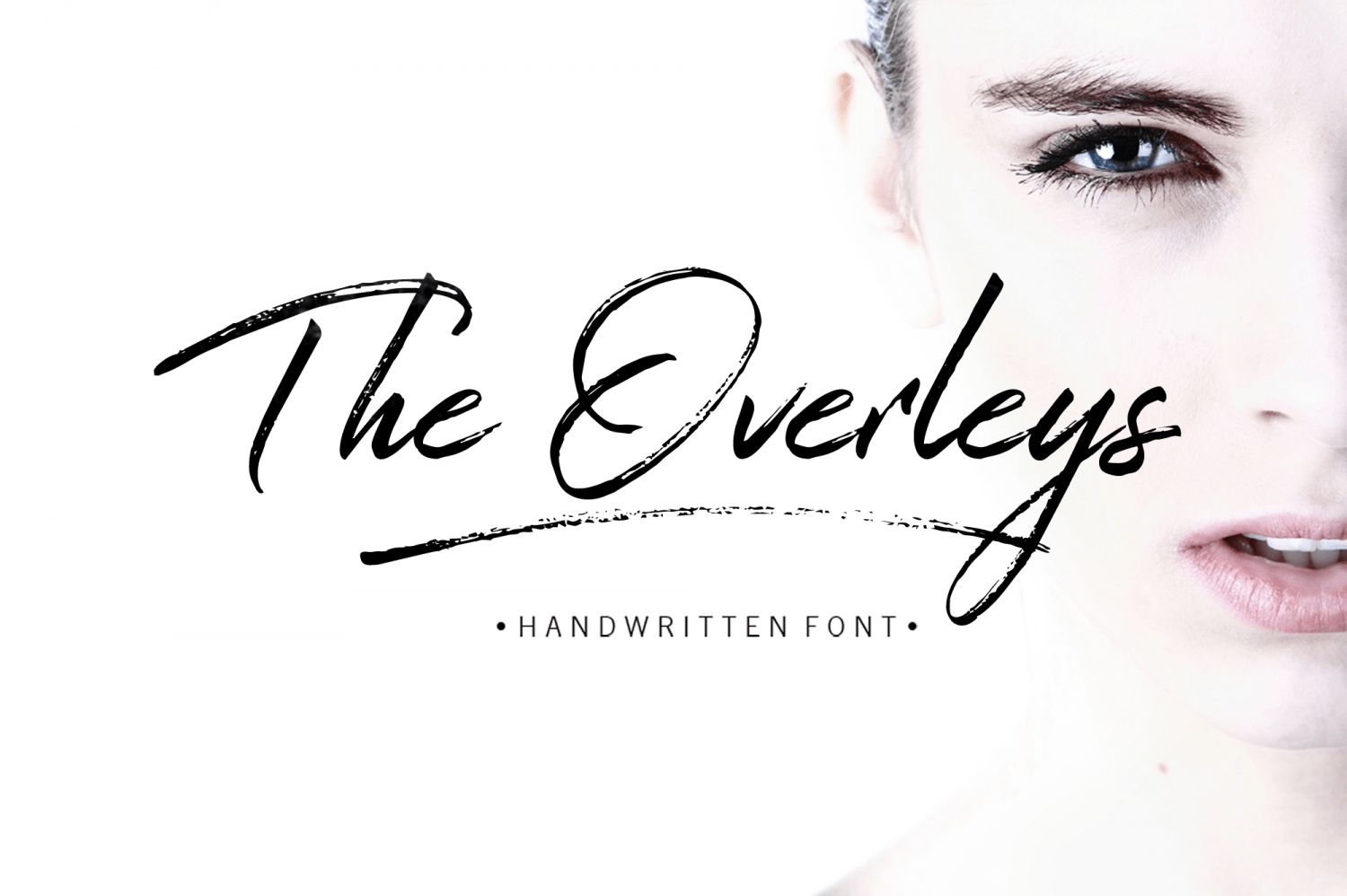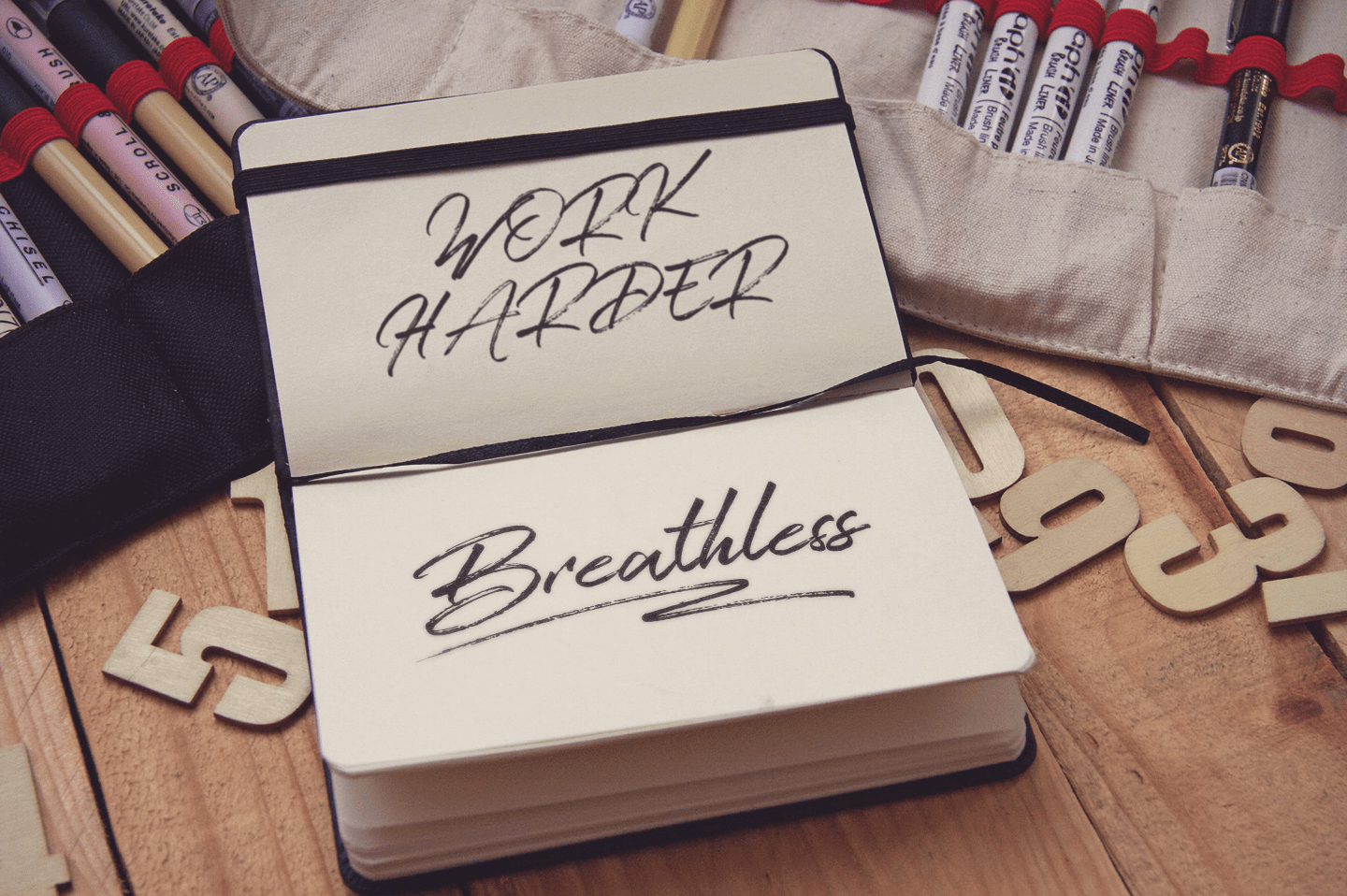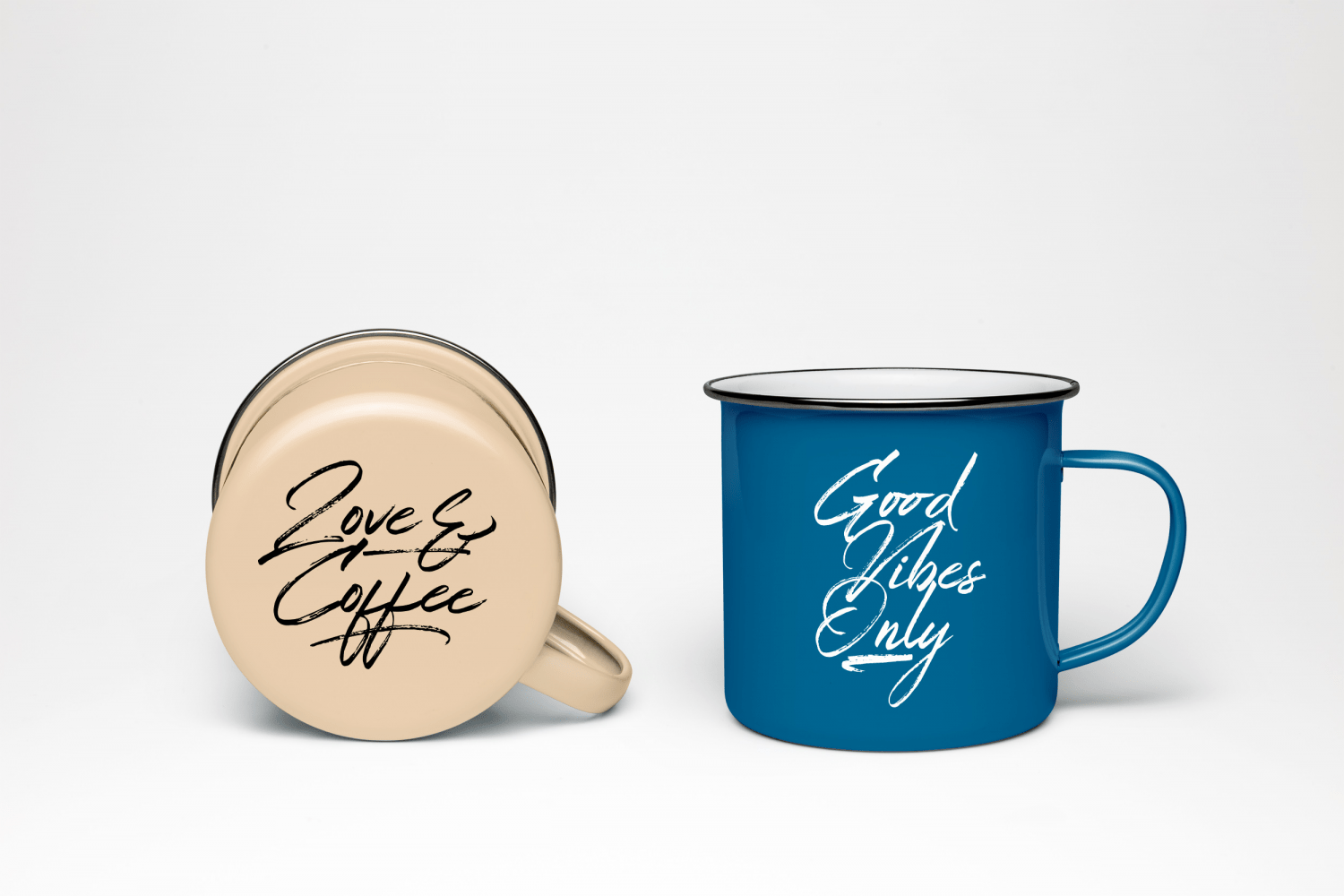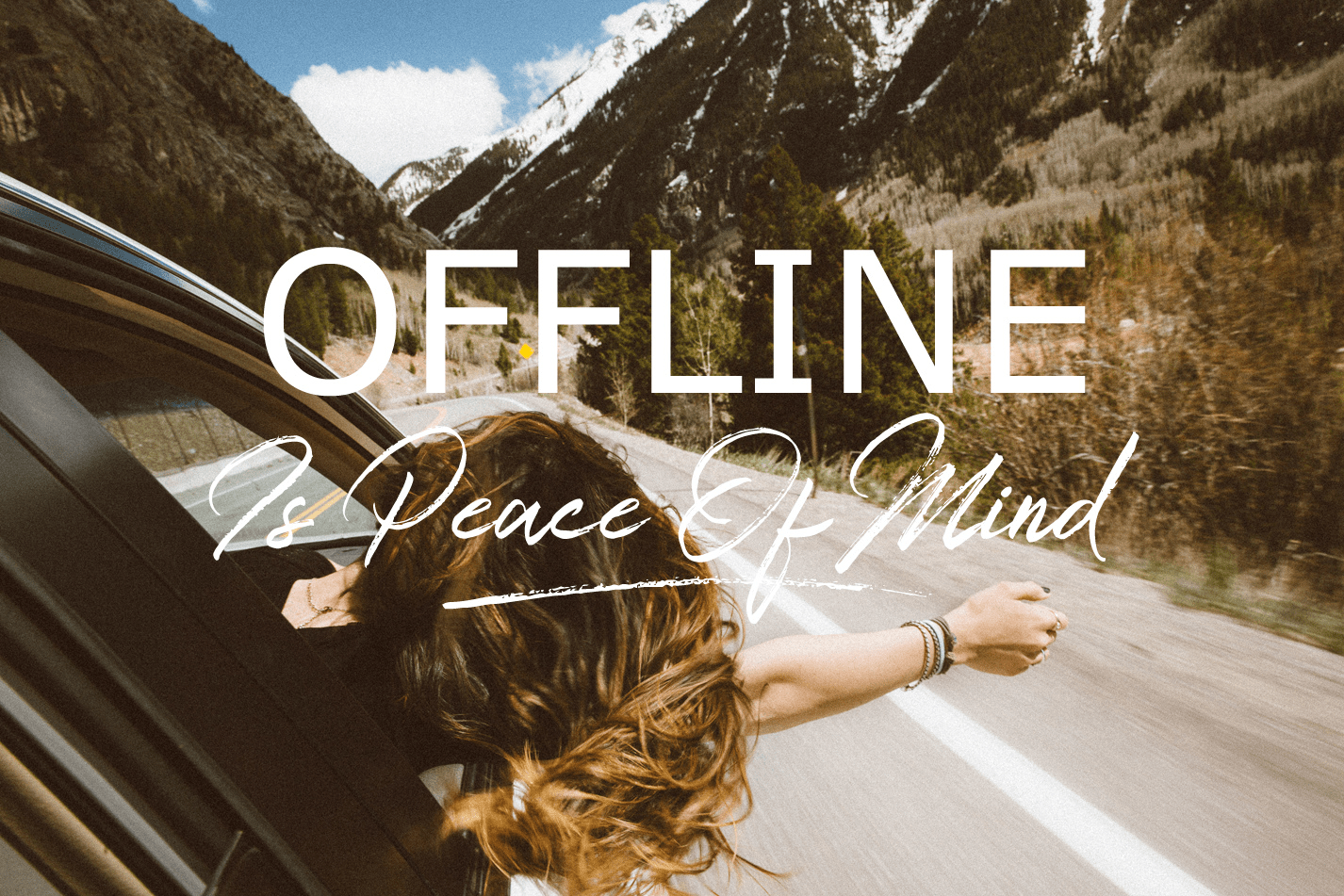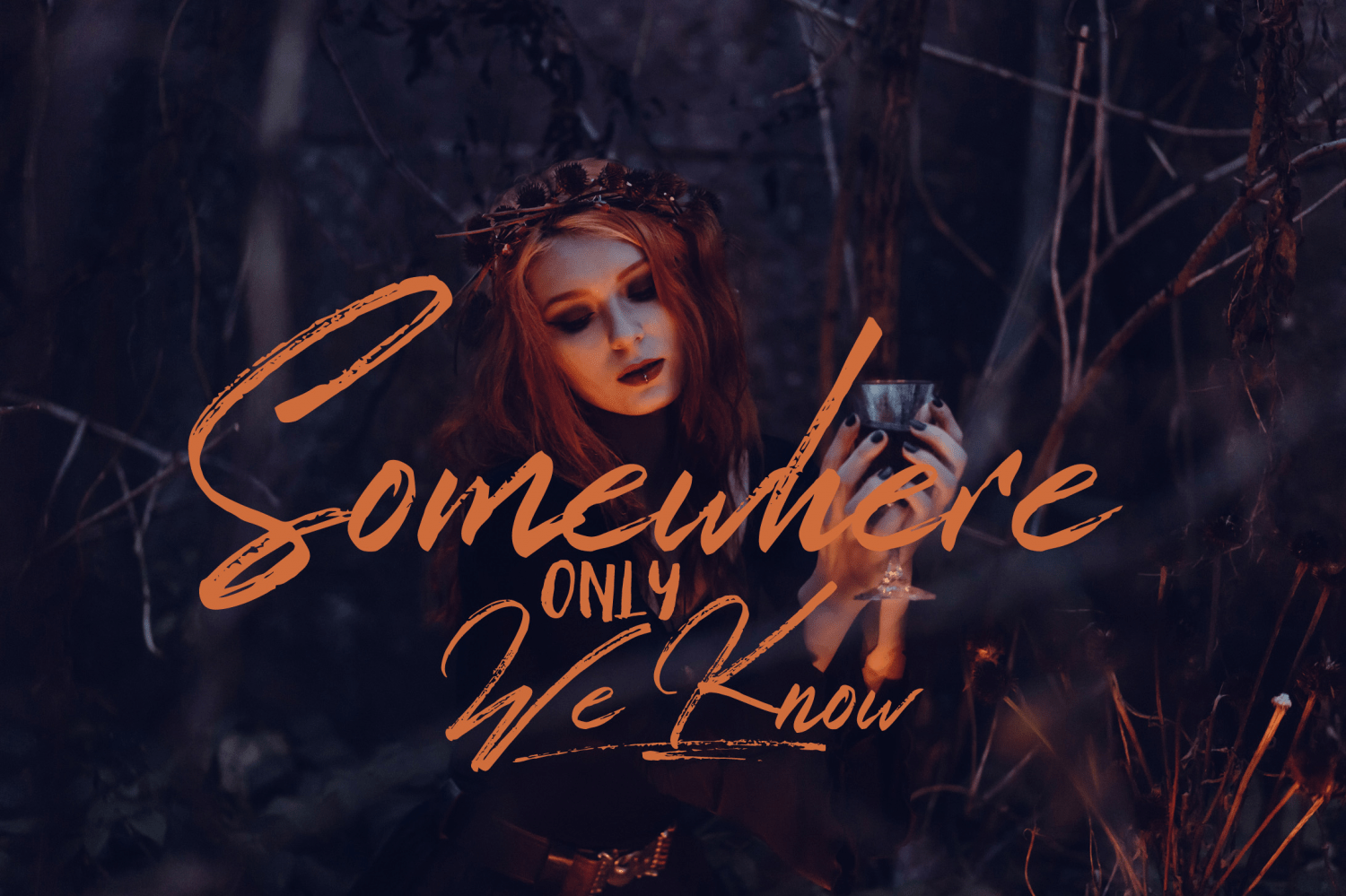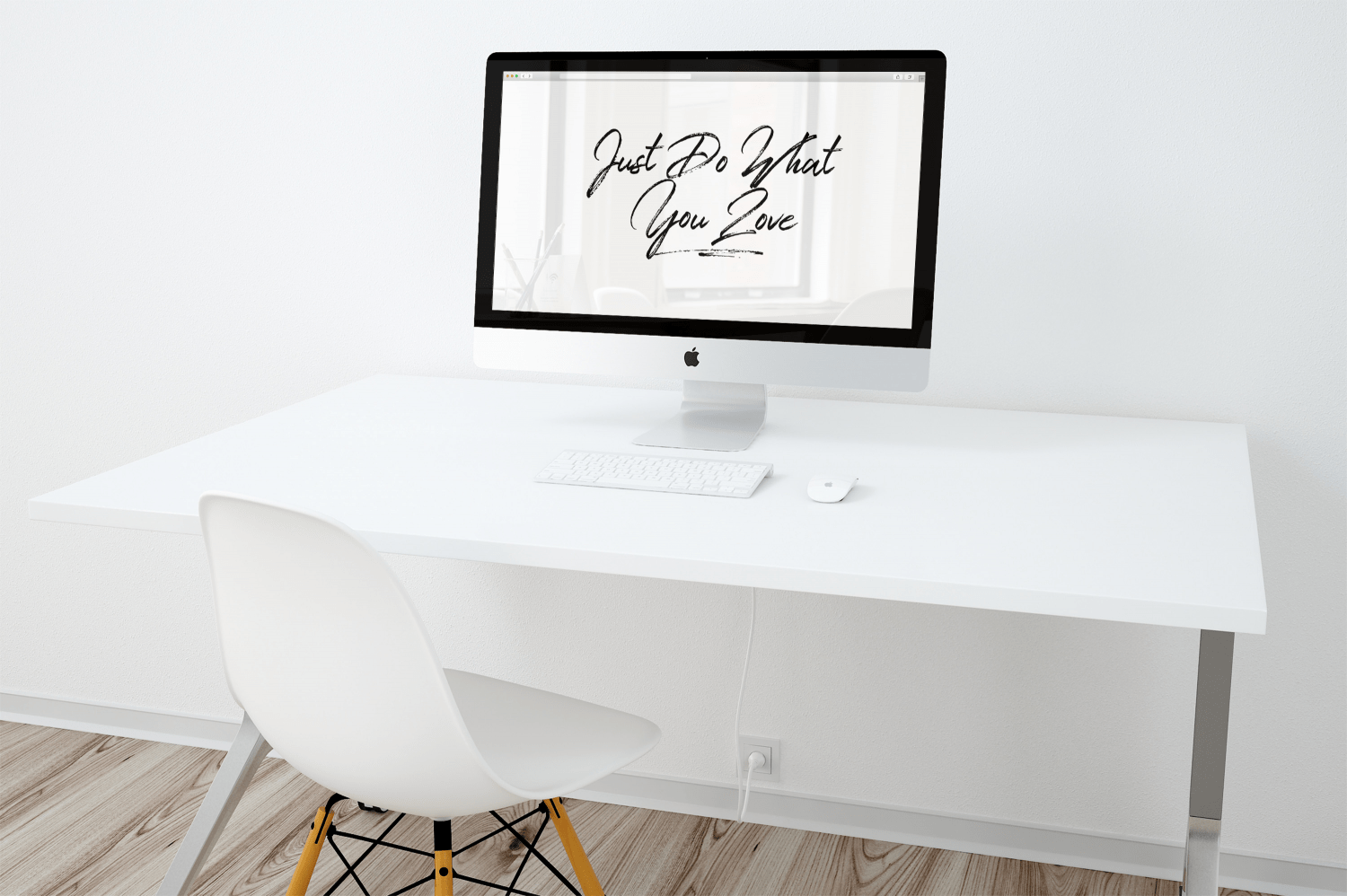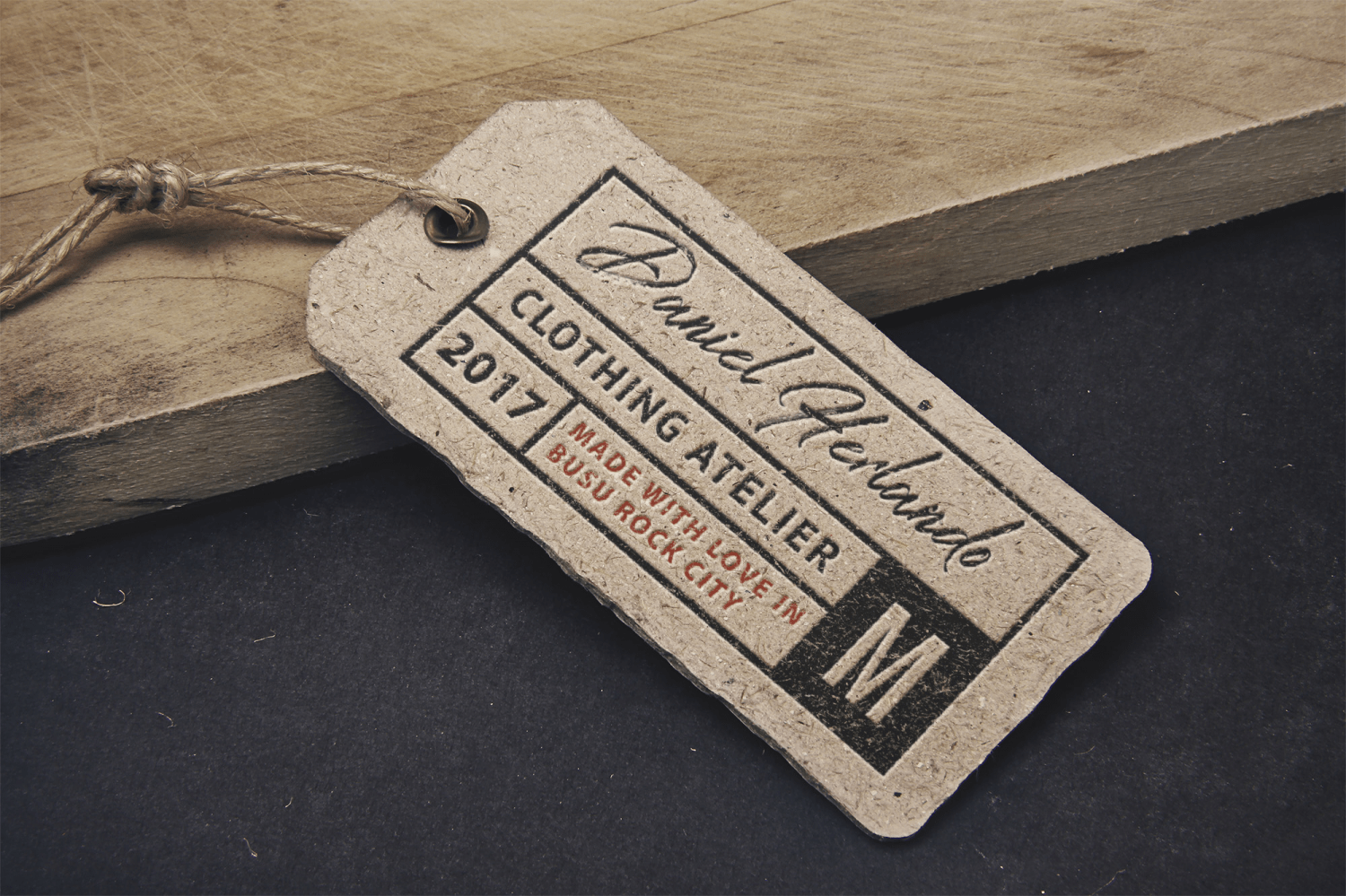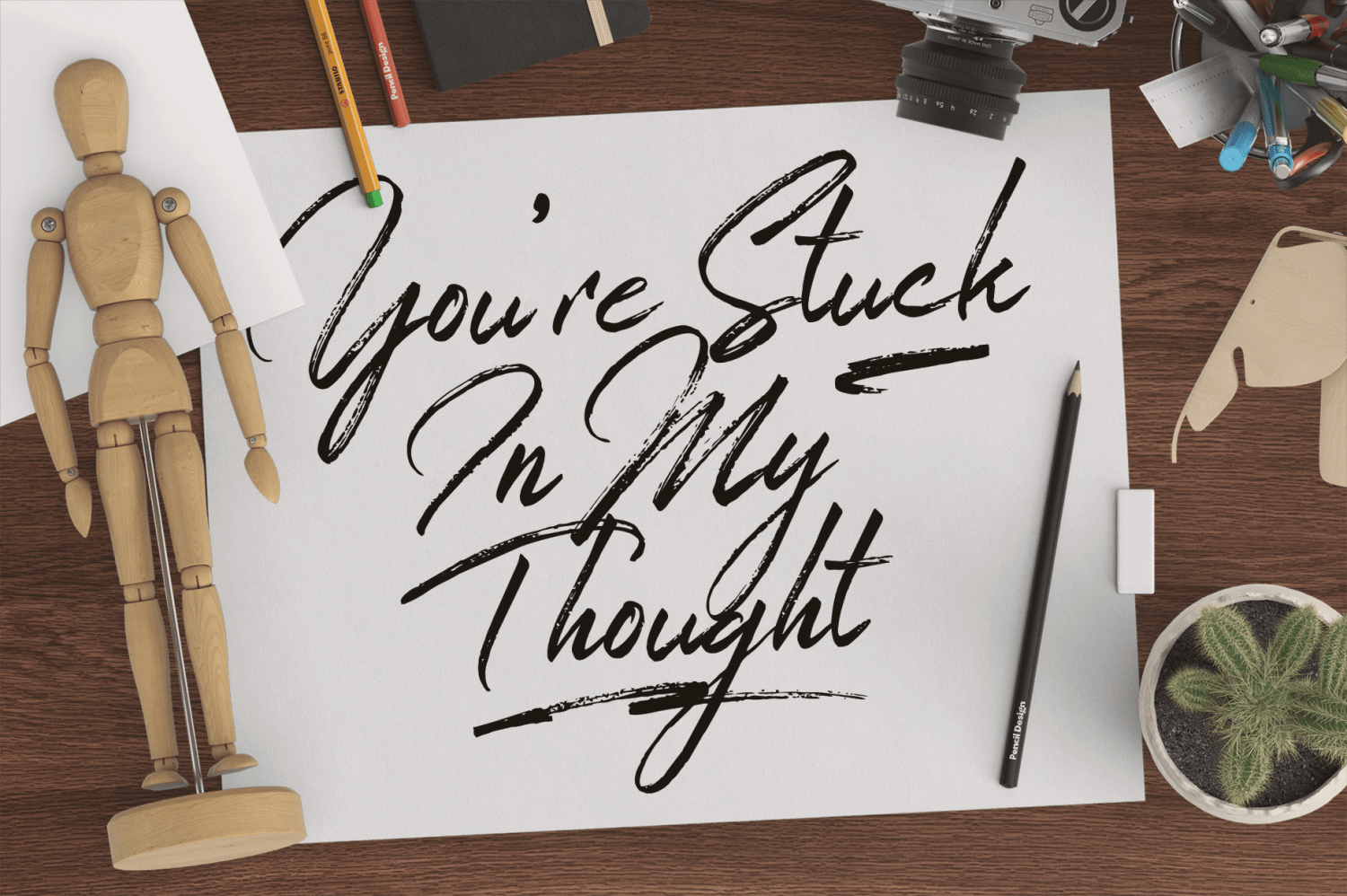
The Overleys
The Overleys is a handwritten font with quick dry strokes and a signature style. perfect for branding projects, homeware designs, product packaging or simply as a stylish text overlay to any background image or posters.
The Overleys has an entire alternate glyph set. This is accessible simply by their own separate font file - just install this as normal and select 'The Overleys Swash' , ?The Overleys Alt' or ?The Overleys Brush? in your text-tool.
1. The Overleys - A handwritten script font containing upper & lowercase characters, numerals and a large range of punctuation.
2. The Overleys Alt - The second version of The Overleys, with a completely new set of both lower and uppercase characters.
3. The Overleys Swash - A set of 26 hand-drawn swashes, with cool touch to underline you're The Overleys text.